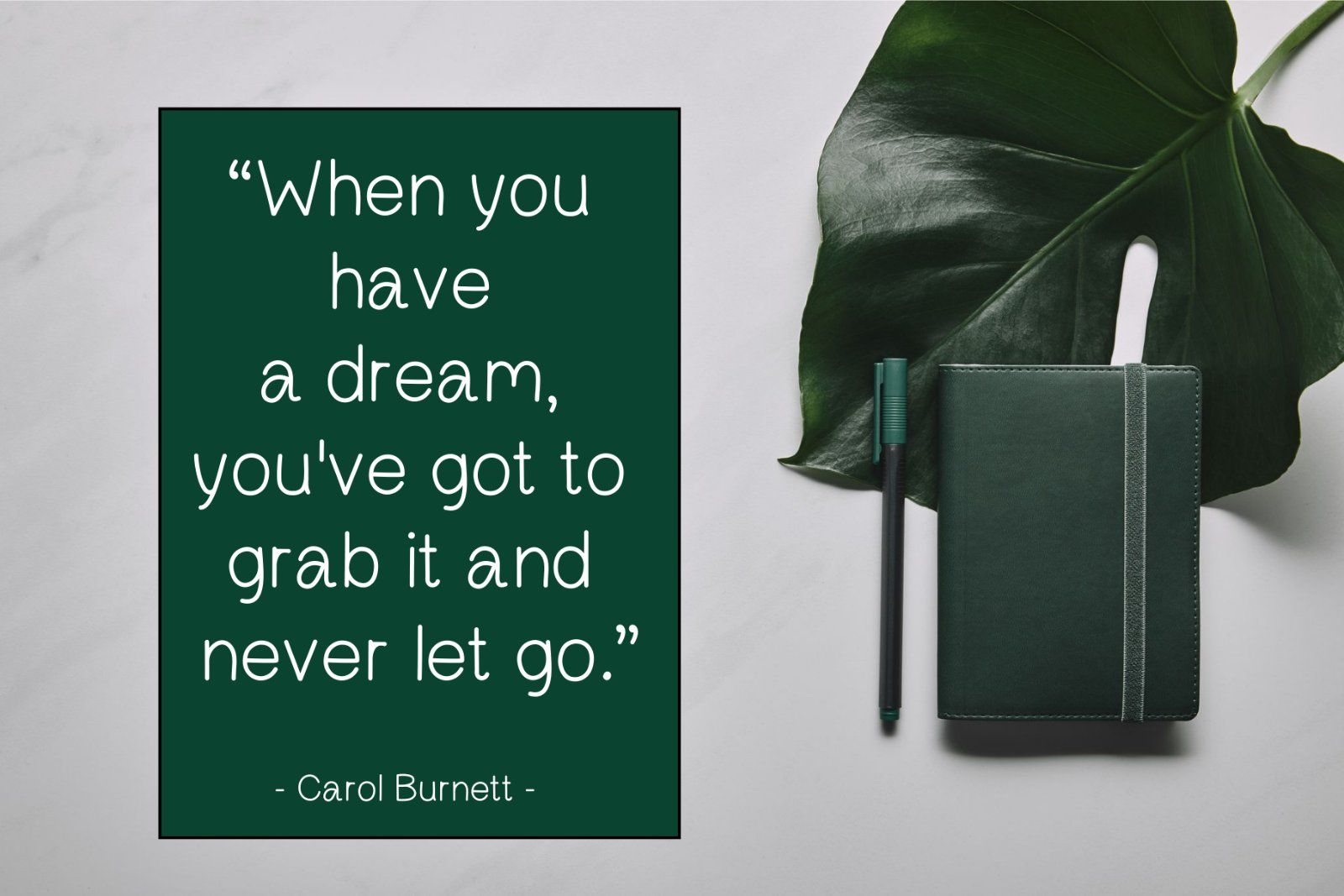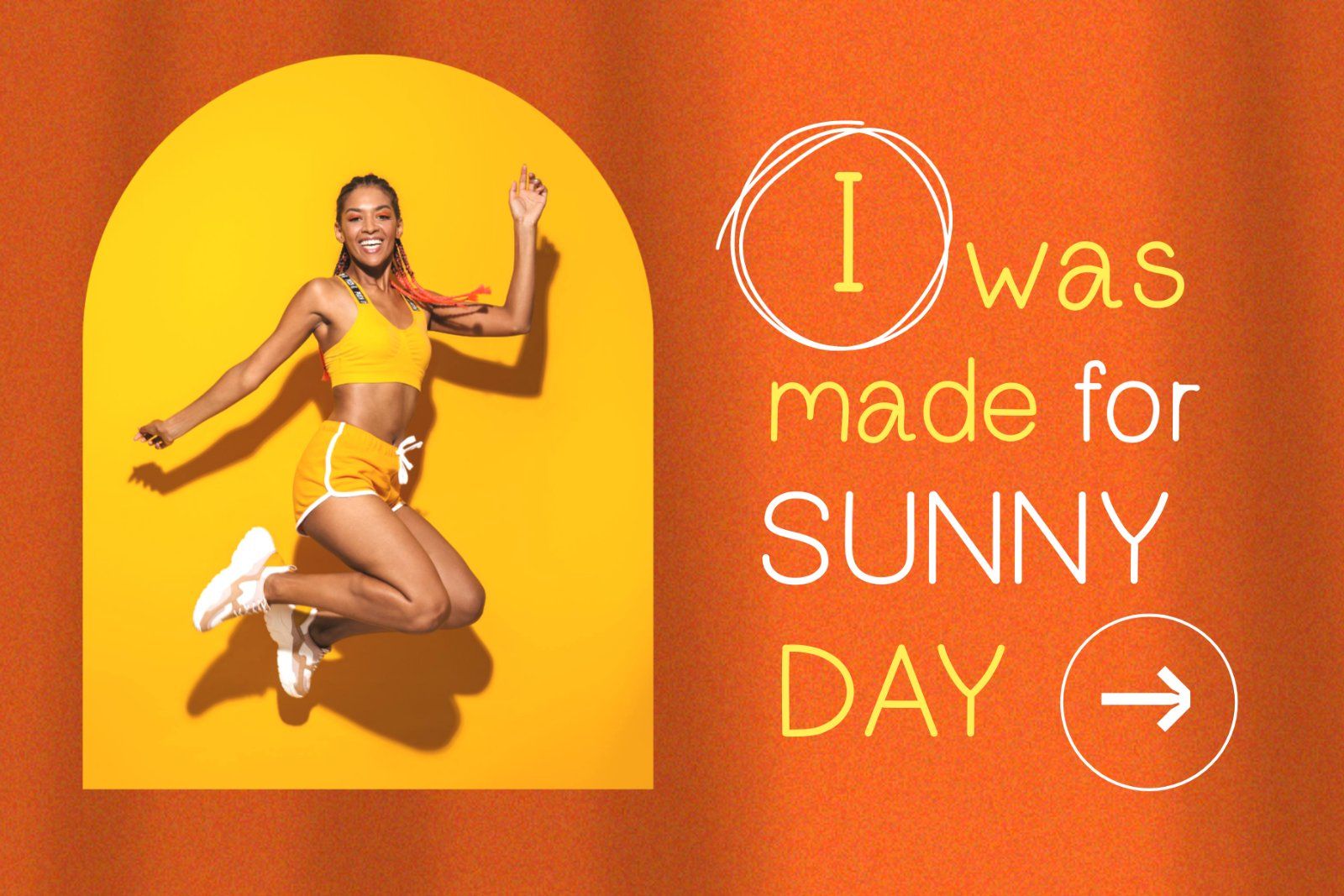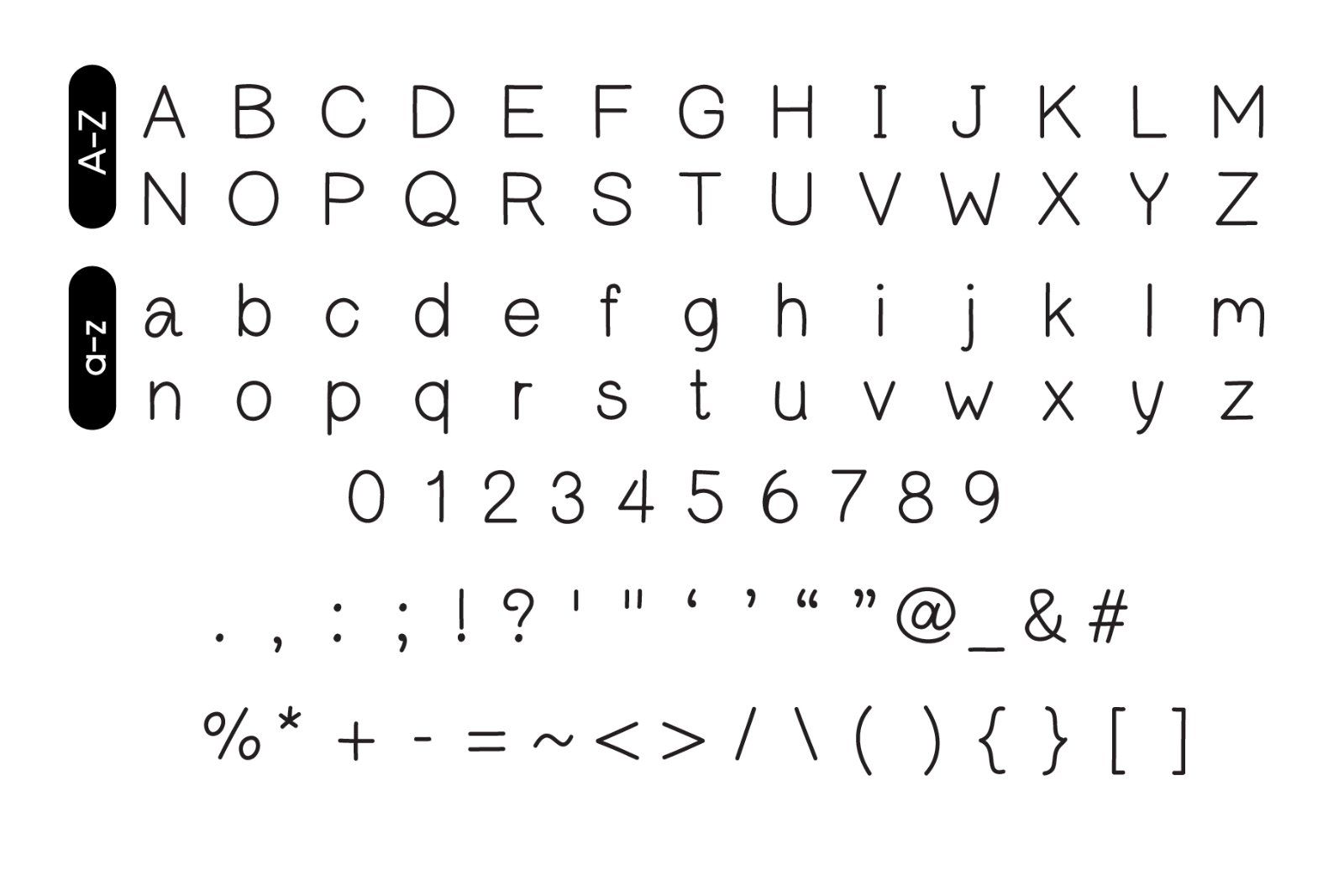
Easy is a simple and clean Handwritten font. You can use it for various projects, such as blog posts, logos, branding, ads, invitations, greeting cards, planners, photo albums, decorations, and much more.